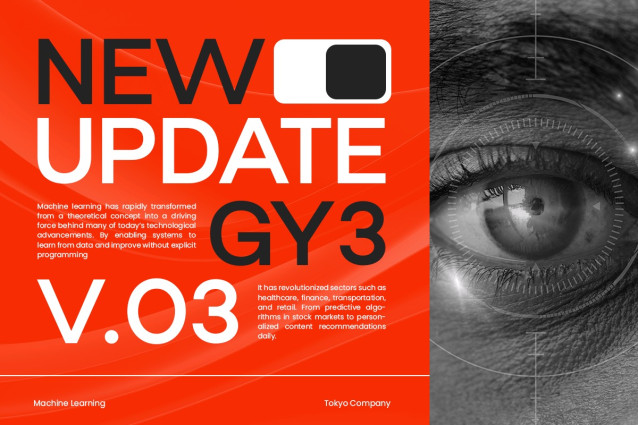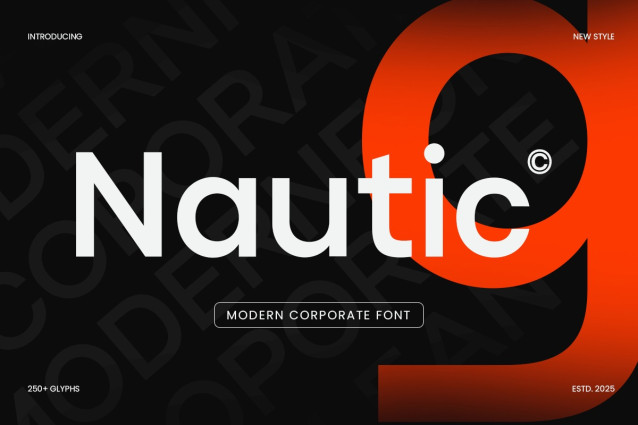
Nautic Font
Nautic Font is a modern corporate font designed to bring a professional and refined look to your branding and corporate design projects. With its clean lines and geometric precision, Nautic is perfect for creating elegant logos, high-impact corporate identities, and contemporary business designs.
Whether you’re working for a tech startup, a financial services brand, or a professional consultancy, Nautic brings a refined and modern touch to your brand’s visual identity. Its versatility makes it ideal for everything from website design to marketing materials and corporate stationery.